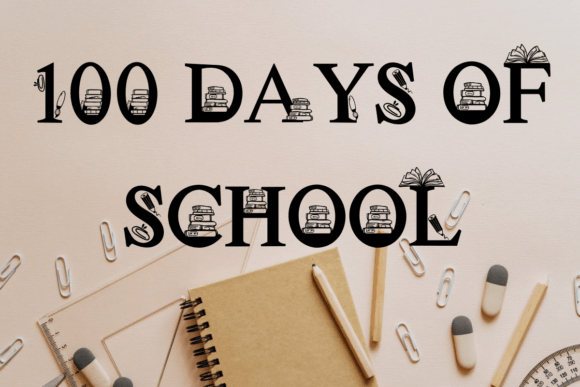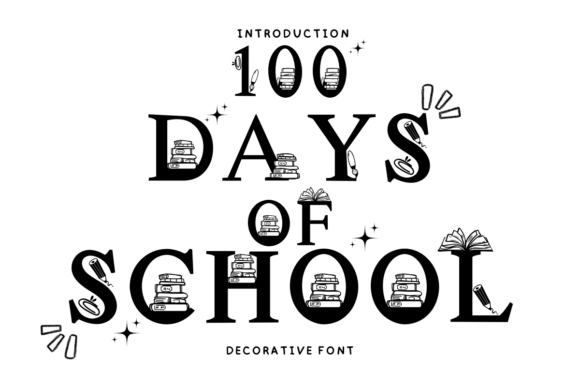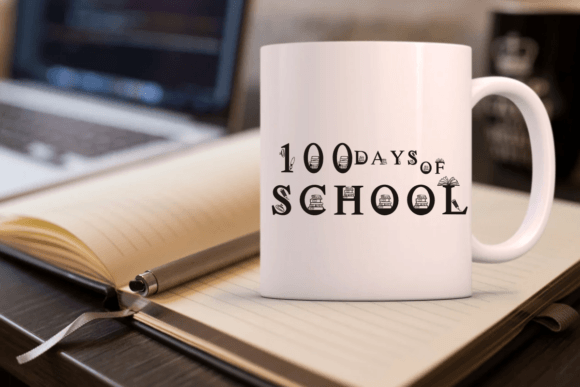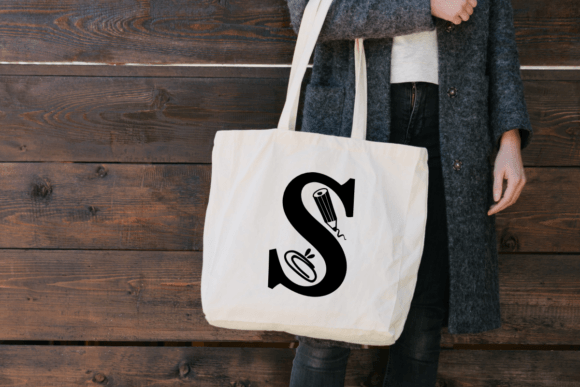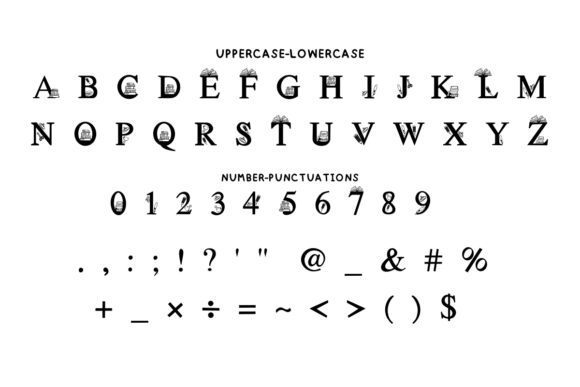
Unlocking Creativity with the ‘100 Days of School’ Font
Immerse yourself in the creative world of ‘100 Days of School’ font, a charming and whimsical typeface that enhances the aesthetic appeal of any written endeavor. Whether you’re crafting heartfelt diary entries, designing festive greeting cards, or jotting down innovative concepts, this ornamental typeface breathes life into written words.
The Versatility of ‘100 Days of School’ Font
This delightful font maintains its versatility across various mediums and designs, flawlessly adapting to:
- Banners: Adding a touch of whimsy to any celebration or announcement.
- Content Creation: Elevating blog posts, articles, and social media content with its unique charm.
- Customized Mugs: Transforming everyday items into personalized treasures.
- Distinctive Cards: Making greeting cards, invitations, and thank-you notes truly special.
- Statement-Making Shirts: Turning ordinary apparel into eye-catching fashion statements.
- Elegant Stationery: Adding a dash of personality to letters, notes, and journals.
- Alluring Social Media Posts: Captivating audiences with its playful and artistic vibe.
A Comprehensive Font for Creative Projects
A comprehensive font that elevates and personalizes your projects, ‘100 Days of School’ encapsulates the joy of writing and designing. Its ornamental style injects a dose of creativity into any written piece, making it perfect for:
- Designers seeking to add a touch of whimsy to their work.
- Crafters looking to create unique and personalized items.
- Educators aiming to make learning materials more engaging.
- Artists and writers seeking to express themselves in a distinctive way.
The Benefits of Using ‘100 Days of School’ Font
By incorporating ‘100 Days of School’ font into your creative projects, you can:
- Enhance the visual appeal of your work.
- Add a touch of personality and whimsy.
- Create unique and eye-catching designs.
- Stand out in a crowded digital landscape.
- Make your content more engaging and shareable.
Tips for Using ‘100 Days of School’ Font Effectively
To get the most out of this delightful font, consider the following tips:
- Use it sparingly: Balance your design with a mix of fonts to maintain readability.
- Experiment with colors: Play with different hues to find the perfect match for your project.
- Pair it with complementary fonts: Combine ‘100 Days of School’ with other fonts to create a unique visual identity.
- Be creative with sizes: Use varying font sizes to add emphasis and visual interest.
In conclusion, the ‘100 Days of School’ font is a versatile and charming typeface that can elevate any creative project. Its whimsical style and ornamental flair make it perfect for designers, crafters, educators, and artists seeking to add a touch of personality to their work. By incorporating this delightful font into your projects, you can unlock a world of creativity and produce unique, eye-catching designs that capture the imagination of your audience.